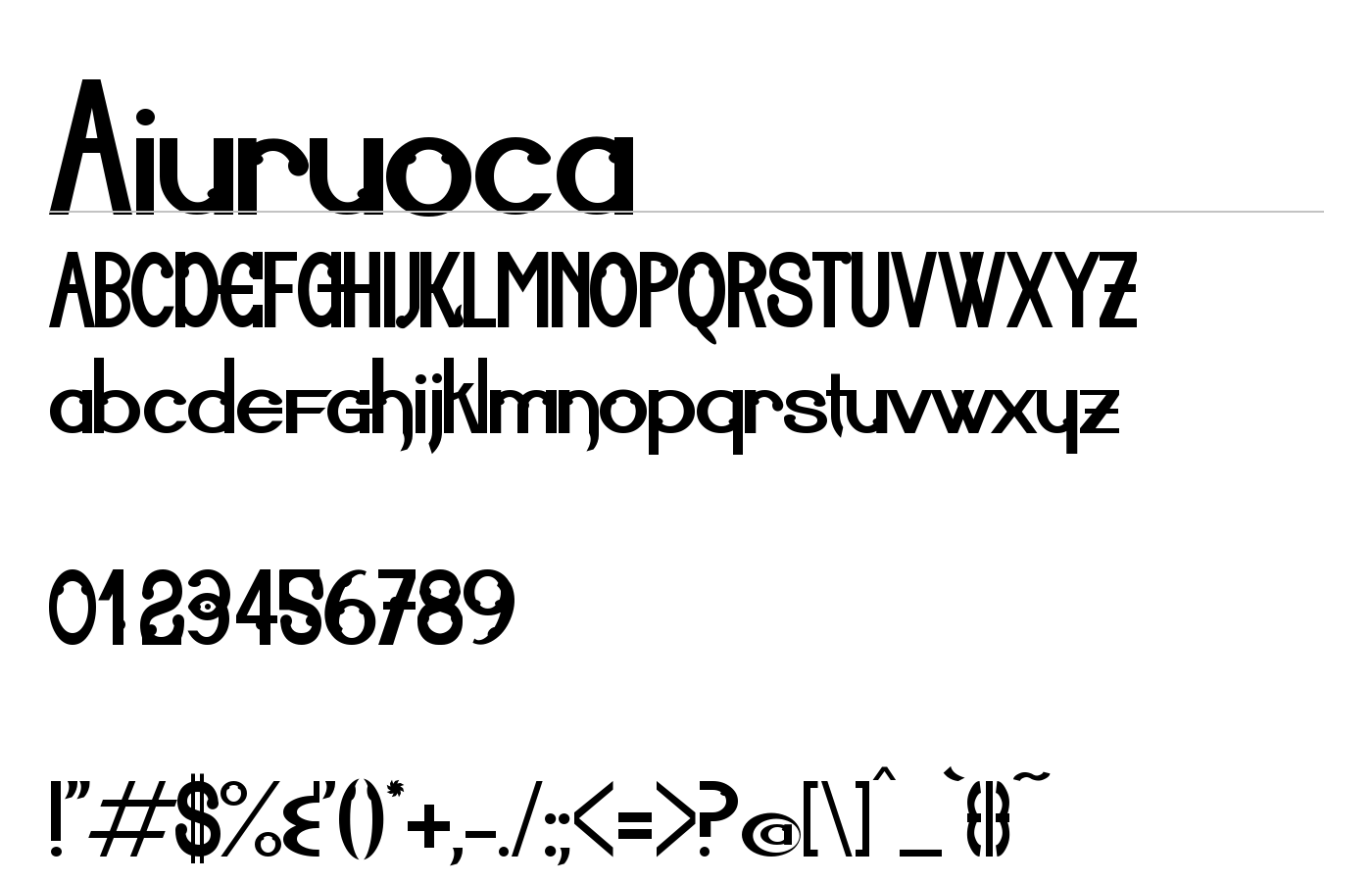
Aiuruoca is a condensed sans serif font with a modern, geometric style that features high contrast between thick and thin strokes. Its narrow letterforms and unique, slightly playful shapes give it a dynamic and artistic feel, making it ideal for eye-catching headlines and creative branding. This font works well for projects seeking a contemporary and distinctive look, such as fashion labels, posters, and editorial designs.
Aiuruoca Font
About Aiuruoca Font
| Font family | Aiuruoca Font |